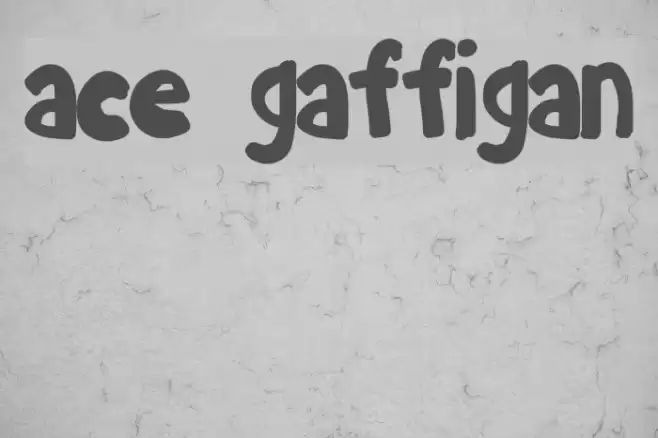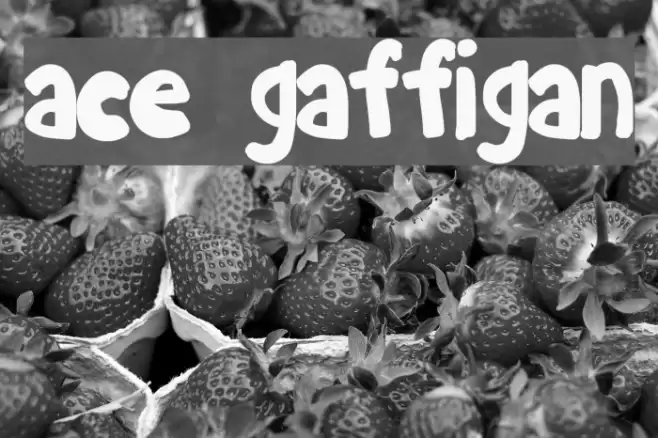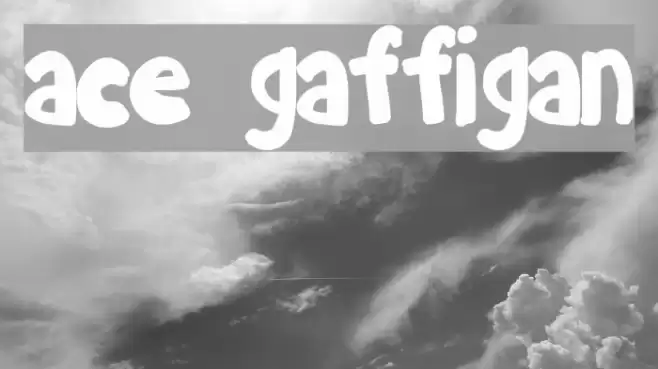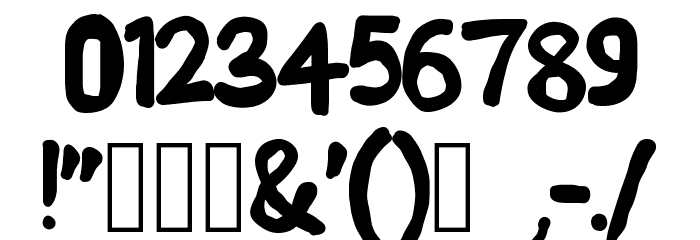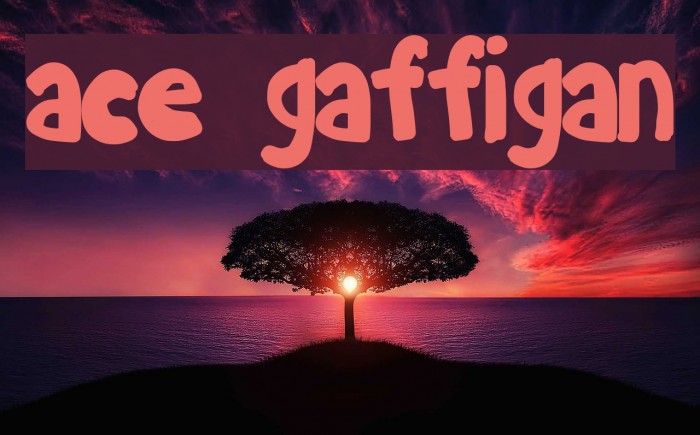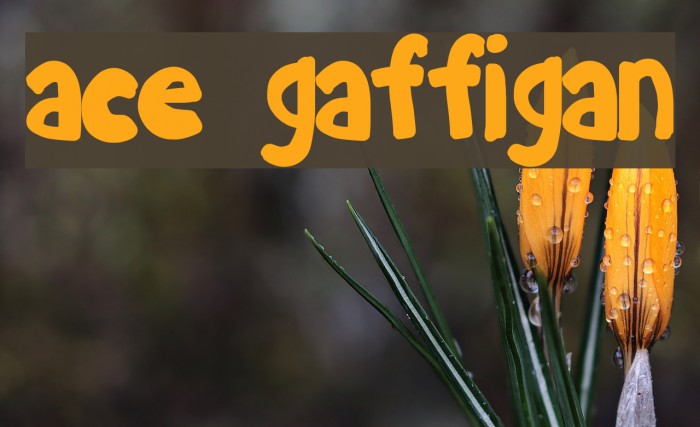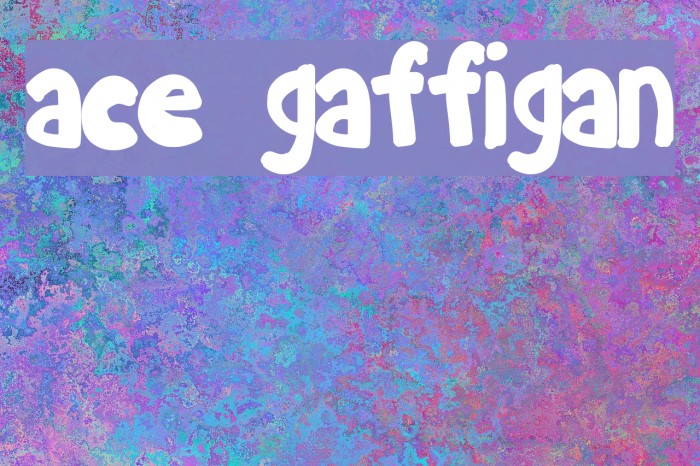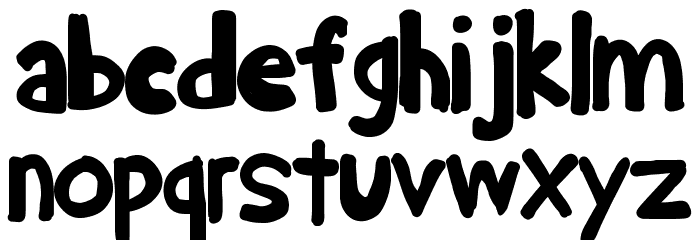
ace gaffigan Font
ace gaffigan Description
This font features a playful and bold style with rounded edges and a hand-drawn appearance. The characters are thick and uniform, giving a sense of friendliness and approachability. The uppercase and lowercase letters maintain consistent proportions, while the numbers and special characters follow the same playful design. The overall look is casual and informal, making it suitable for projects that require a fun and engaging aesthetic.
A playful, bold, and rounded font with a hand-drawn style from Cartoon fonts.
- Proposed Projects: Ideal for children's books, playful branding, casual invitations, and creative posters.
- Overall Style: Casual